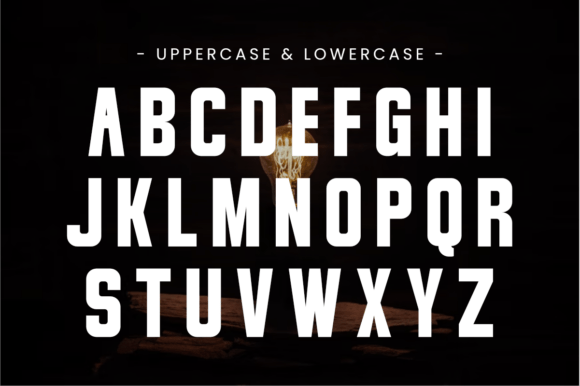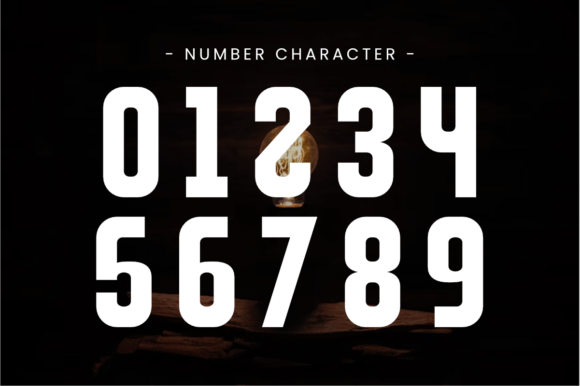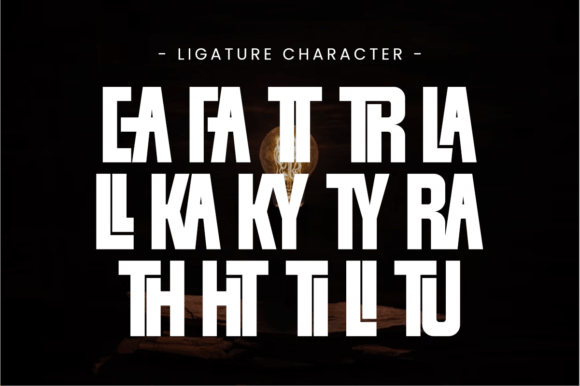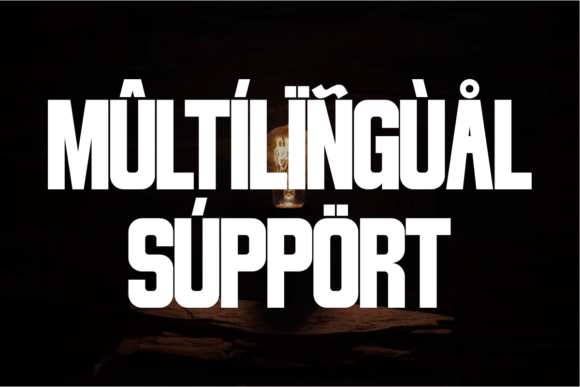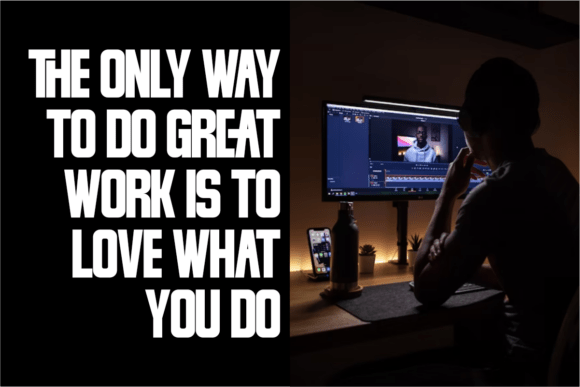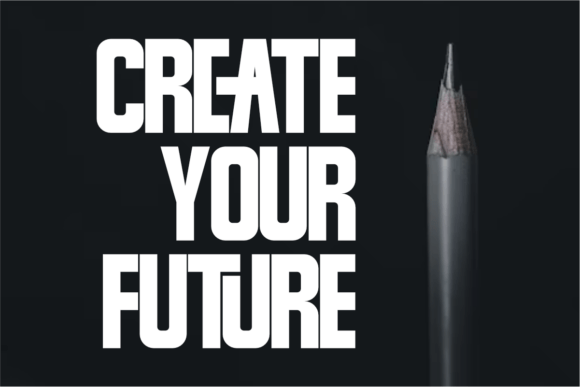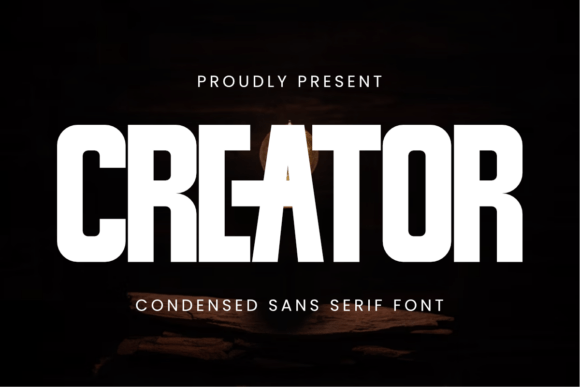
Introducing Creator Font: The Ultimate Choice for Impactful Typography
In the world of design, typography plays a crucial role in capturing the audience’s attention and conveying the message effectively. With numerous fonts available, finding the perfect one that stands out from the crowd can be a daunting task. However, if you’re looking for a font that exudes confidence, boldness, and professionalism, look no further than the Creator Font. This condensed sans serif font is specifically designed to make your text stand out, making it an ideal choice for various design projects.
Key Features of Creator Font
The Creator Font boasts a range of features that make it an excellent addition to any designer’s toolkit. Some of its key characteristics include:
- Condensed sans serif design: The font’s sleek and streamlined design ensures that your text remains clear and legible, even at smaller sizes.
- Bold, wide, and impactful letterforms: The Creator Font’s letterforms are carefully crafted to make a statement, ensuring that your text grabs attention and leaves a lasting impression.
- Geometric structure: The font’s geometric structure provides a sense of stability and professionalism, making it perfect for projects that require a corporate or modern feel.
- Strong presence: The Creator Font’s bold and confident design ensures that your text stands out from the crowd, making it ideal for headlines, posters, and other attention-grabbing applications.
The Creator Font’s versatility makes it an excellent choice for a wide range of design projects, including:
- Headlines and titles: The font’s bold and impactful design makes it perfect for headlines, titles, and other attention-grabbing applications.
- Posters and flyers: The Creator Font’s condensed design ensures that your text remains clear and legible, even at smaller sizes, making it ideal for posters and flyers.
- Branding and logos: The font’s geometric structure and strong presence make it an excellent choice for branding and logo design, helping to create a professional and cohesive visual identity.
- Sports designs: The Creator Font’s bold and confident design makes it perfect for sports-related design projects, such as team logos, jerseys, and promotional materials.
- Editorial layouts: The font’s clear and legible design ensures that your text is easy to read, making it an excellent choice for editorial layouts, such as magazines and newspapers.
- Advertising: The Creator Font’s attention-grabbing design makes it perfect for advertising applications, such as billboards, print ads, and digital campaigns.
- Modern projects: The font’s sleek and modern design ensures that it will fit in seamlessly with modern design projects, such as website headers, social media graphics, and more.
Why Choose Creator Font?
With so many fonts available, why choose the Creator Font? Here are just a few reasons why this font stands out from the crowd:
- Unique and attention-grabbing design: The Creator Font’s bold and impactful design ensures that your text stands out from the crowd, grabbing attention and leaving a lasting impression.
- Highly versatile: The font’s versatility makes it an excellent choice for a wide range of design projects, from headlines and posters to branding and advertising.
- Professional and modern feel: The Creator Font’s geometric structure and sleek design ensure that your text looks professional and modern, making it perfect for projects that require a corporate or contemporary feel.
| Font Name | Creator Font |
| Author | Funtype Co. |
In conclusion, the Creator Font is an exceptional choice for designers and crafters looking for a bold, impactful, and professional font. Its condensed sans serif design, geometric structure, and strong presence make it perfect for a wide range of design projects, from headlines and posters to branding and advertising. With its unique and attention-grabbing design, high versatility, and professional feel, the Creator Font is sure to become a staple in any designer’s toolkit.